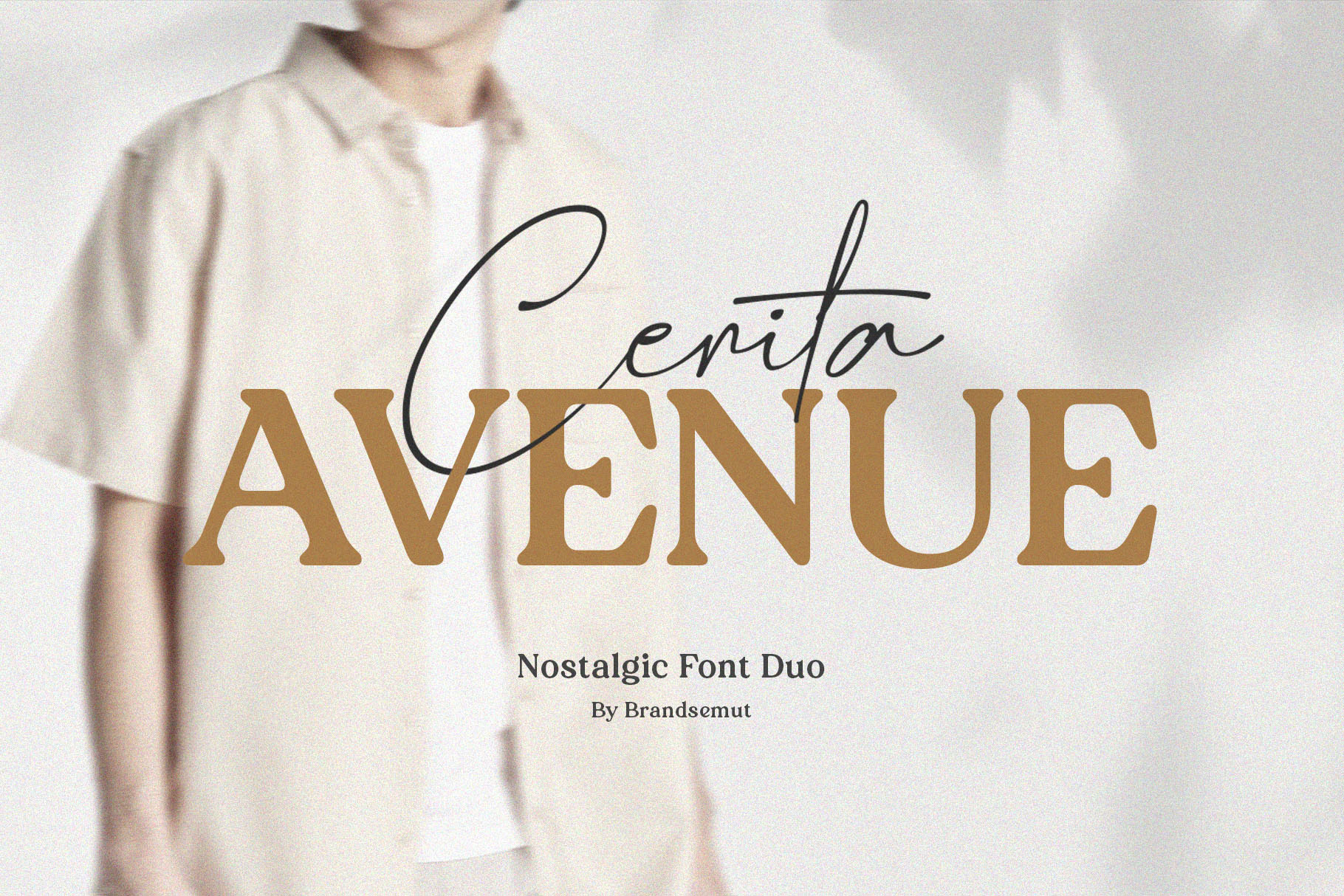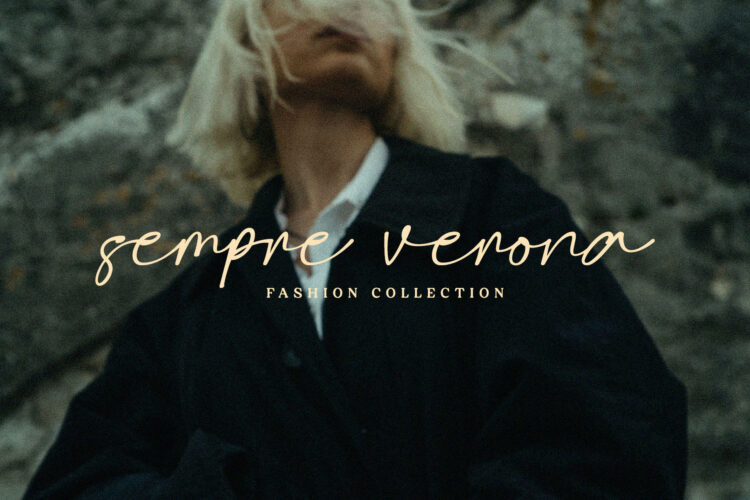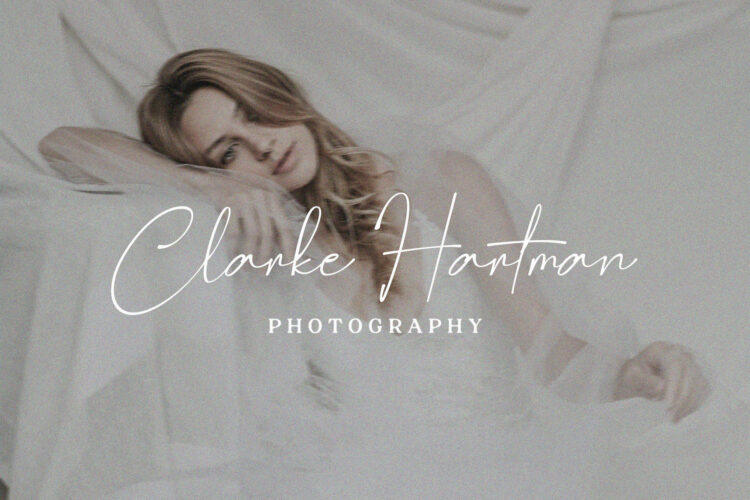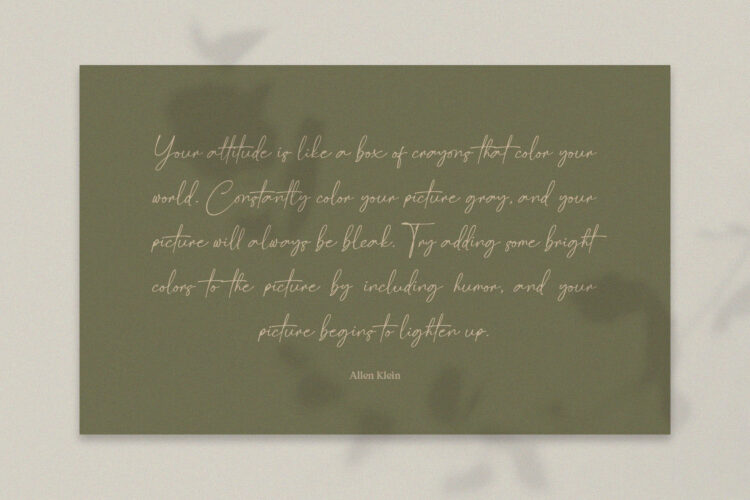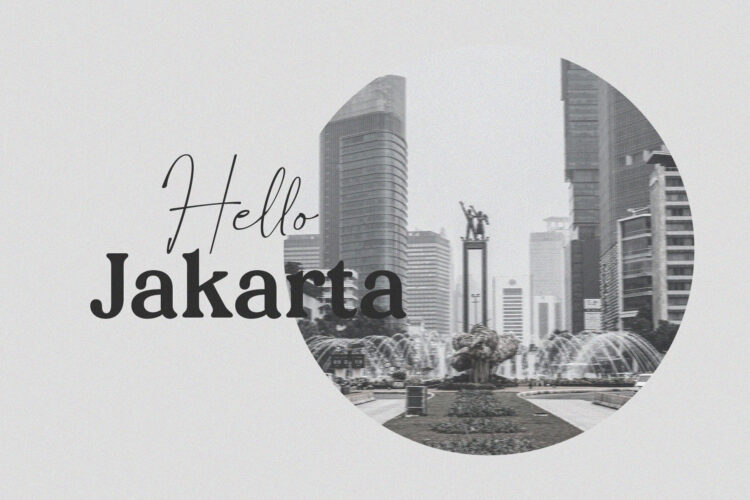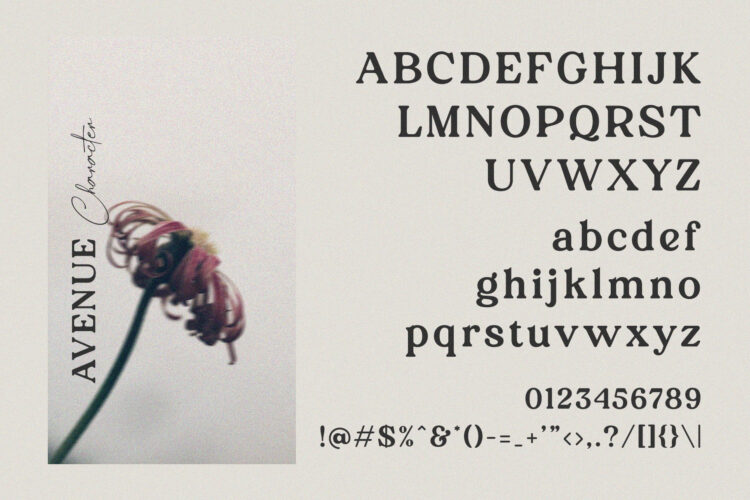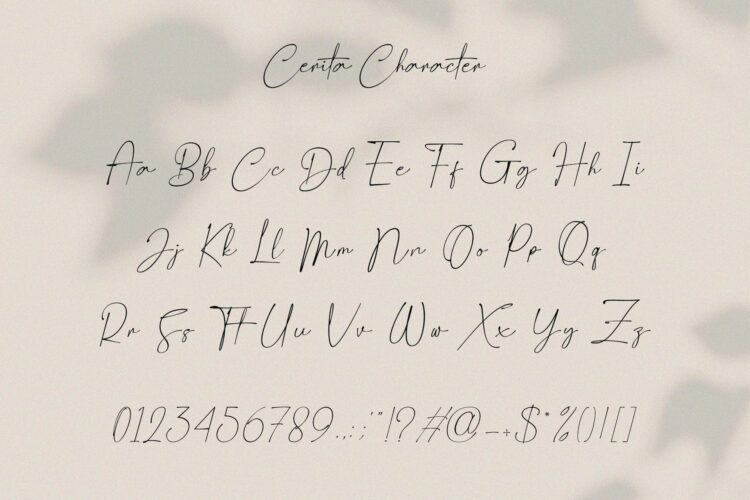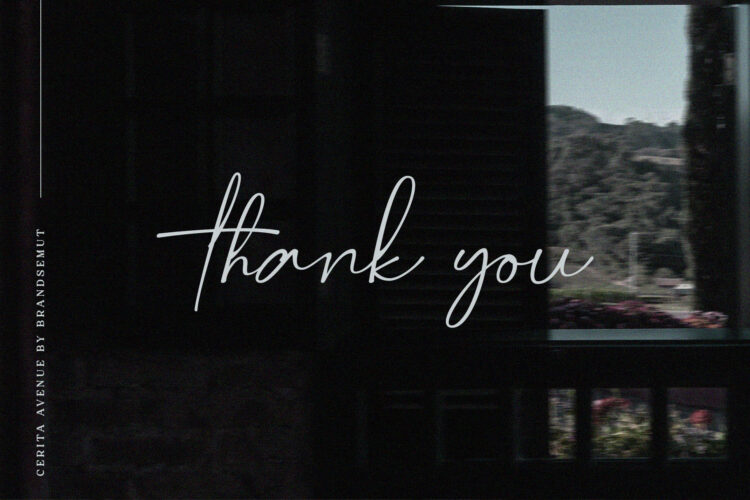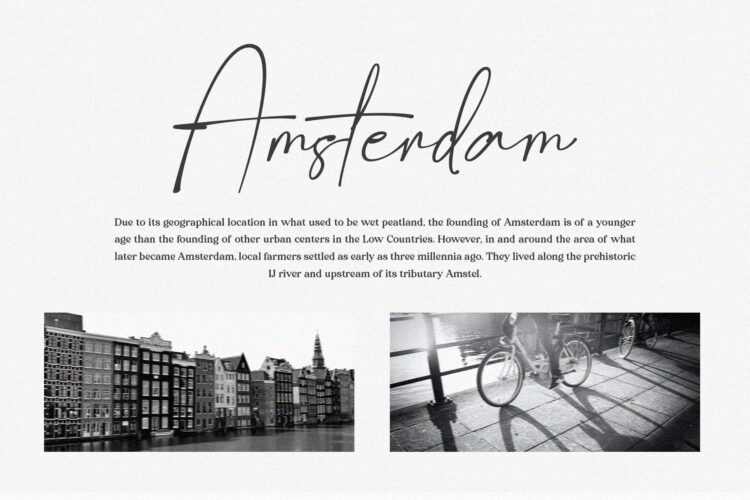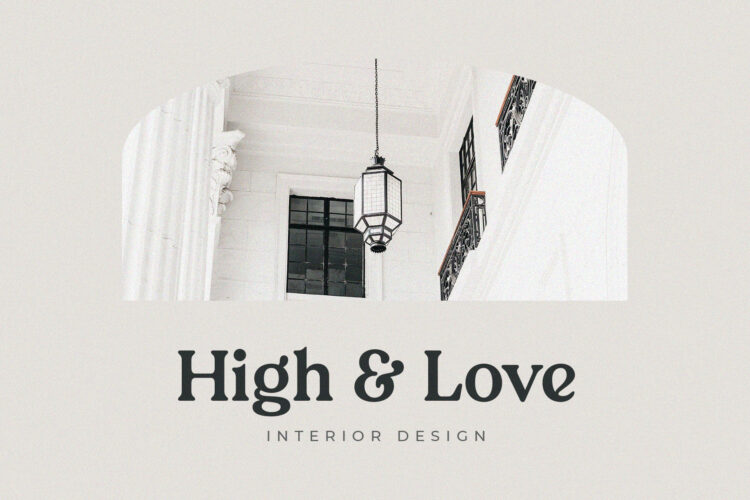
Introducing the new Cerita Avenue a Nostalgic Font Duo.
Cerita Avenue is a classy font duo that includes a signature script and a serif typeface – already matched up and ready to be used together for your next design! Cerita Avenue best used as a display for headings, logos, branding, magazines, product packaging and invitations, etc.
Cerita Avenue was built with OpenType features and includes ligatures, alternates, numbers, punctuation, and it also supports other languages.